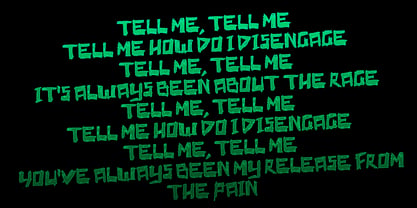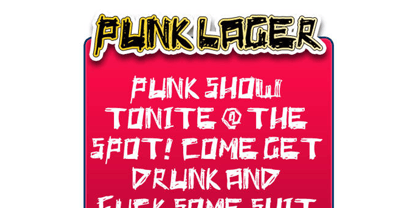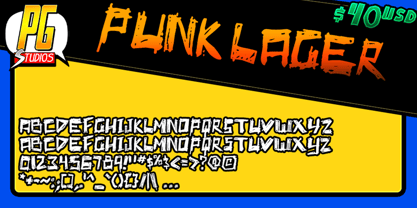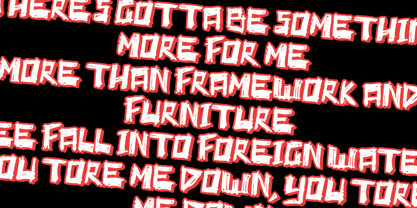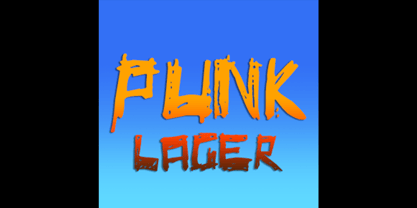
Punk lager
by PressGang Studios
The Punk lager Font Family was designed by Andeh Pinkard and published by PressGang Studios. Punk lager contains 1 styles. More about this family
Sticking to my punk roots, I tried to design a font that could be seen on some kind of local punk gig flyer
Designers: Andeh Pinkard
Foundry: PressGang Studios